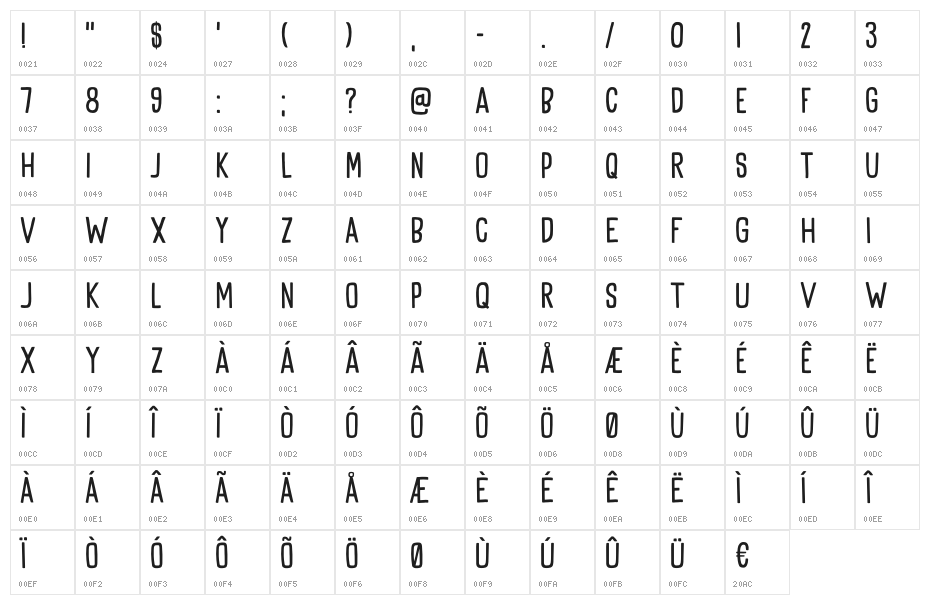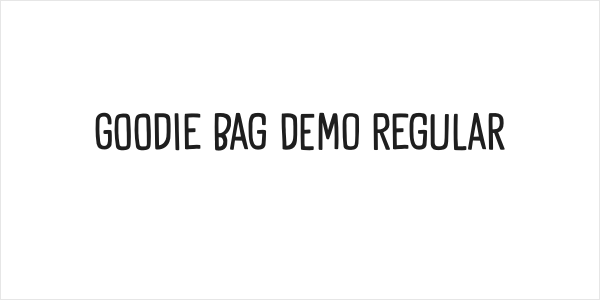
Goodie Bag DEMO Regular Font
Goodie Bag DEMO Regular Description
This font features a playful and quirky design with a handwritten style that adds a personal touch to any project. The characters are slightly elongated with rounded edges, giving them a friendly and approachable appearance. The uppercase and lowercase letters maintain a consistent style, while the numbers and special characters blend seamlessly with the overall design. The font's unique personality makes it ideal for creative projects that require a touch of whimsy and fun. Its legibility ensures it can be used effectively in various contexts, from headlines to branding materials.
| Proposed Projects | Ideal for children's books, greeting cards, playful branding, and creative posters. |